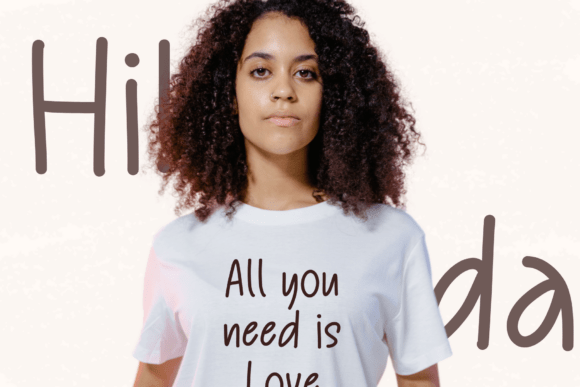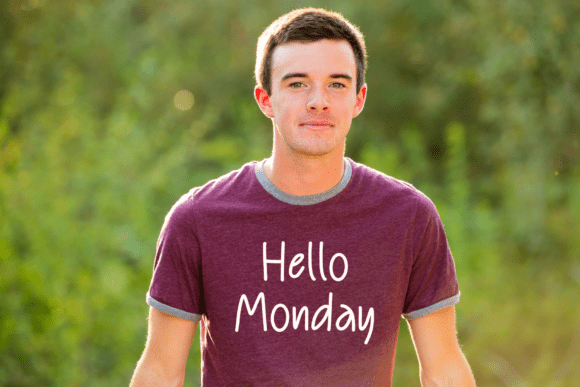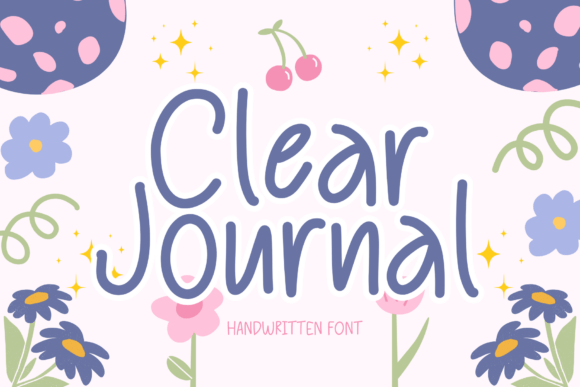
Clear Journal Font: A Playful Handwritten Font for Cricut & DIY!
About the Clear Journal Font
Explore the possibilities with Clear Journal Font, a font that offers both beauty and functionality. Clear Journal is a handwritten font. It embodies playfulness and authenticity and is the perfect choice for all your favorite projects, or even for blog posts, logos, branding, ads, invitations, greeting cards, planners, photo albums, decorations, and much more. Add it to any of your designs, and enjoy the results!
Clear Journal’s playful, authentic feel makes it ideal for headlines, short text blocks on posters or invitations, and branding elements requiring a friendly, approachable aesthetic. It works exceptionally well for projects targeting younger demographics or those emphasizing handmade, craft-based products. Avoid using it for body text or extended reading; its informal nature hinders readability in longer passages.
Pairing Clear Journal with a clean sans-serif like Open Sans for body copy creates a balanced and accessible design. For a more sophisticated look, consider a classic serif such as Garamond or a more geometric sans-serif like Montserrat. These pairings temper its casual nature, providing contrast and visual hierarchy.
The font’s overall personality is best described as friendly and approachable, yet still retaining a touch of sophistication. Its handwritten style lends itself to projects that value authenticity and human connection, making it a versatile option for branding projects that wish to convey warmth and approachability.